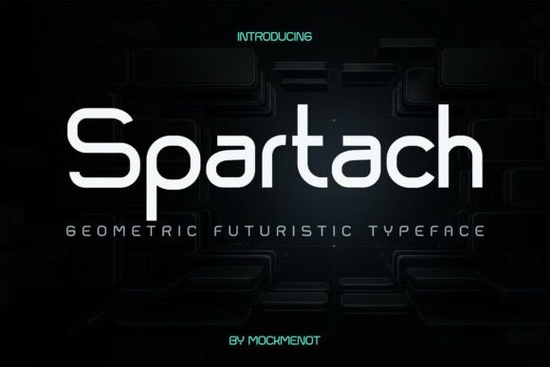
If you're looking for a clean, modern font that feels right at home in tech-forward designs, Spartach Font is worth considering. It’s a geometric sans-serif typeface built with precision and purpose ideal for startups, digital product branding, gaming visuals, UI elements, and any project where a sleek, futuristic look matters.
What makes Spartach Font stand out?
Spartach combines sharp geometry with soft, rounded edges to create a balanced look that’s both bold and readable. Unlike many futuristic fonts that lean too hard into the sci-fi side, Spartach keeps things grounded with consistent monoline strokes and even spacing. This means it works well at small sizes perfect for app interfaces or product labels without losing clarity.
The family includes eight styles, from light to black, giving you room to play with hierarchy and emphasis. Whether you're designing a logo, crafting a social media post, or building a website hero section, you’ll find a weight that fits the mood of your project.
Where can I use Spartach Font effectively?
Because of its clean structure and modern vibe, Spartach shines in several creative areas:
- Technology branding – Great for startups aiming to feel innovative without being flashy.
- UI & UX design – Works beautifully in dashboards, buttons, and navigation menus.
- Gaming & esports visuals – Adds a polished, high-tech feel to game titles, leaderboards, or promotional graphics.
- Print-on-demand products – Ideal for T-shirts, mugs, and posters with a digital-age aesthetic.
- Website headlines and banners – Makes your message pop without overwhelming the viewer.
It also pairs well with minimalist layouts, dark backgrounds, and vibrant accent colors making it a flexible choice across different design directions.
How does it compare to other modern sans-serifs?
While fonts like Biyonix bring a softer, more organic feel, and Ortico leans into a slightly retro-modern tone, Spartach holds its own with a tighter, more mechanical rhythm. If you want something that feels like it belongs in a smartwatch interface or a cyberpunk movie title sequence, this is a solid pick.
For contrast, Espresso offers warmth and hand-drawn charm great for lifestyle brands but lacks the rigid precision Spartach delivers. Meanwhile, Narrow Distressed adds texture and grit, which might distract if you’re going for a smooth, high-end finish.
Spartach sits in a sweet spot: structured enough for professional work, but not so rigid it feels cold. It’s the kind of font that supports your message instead of competing with it.